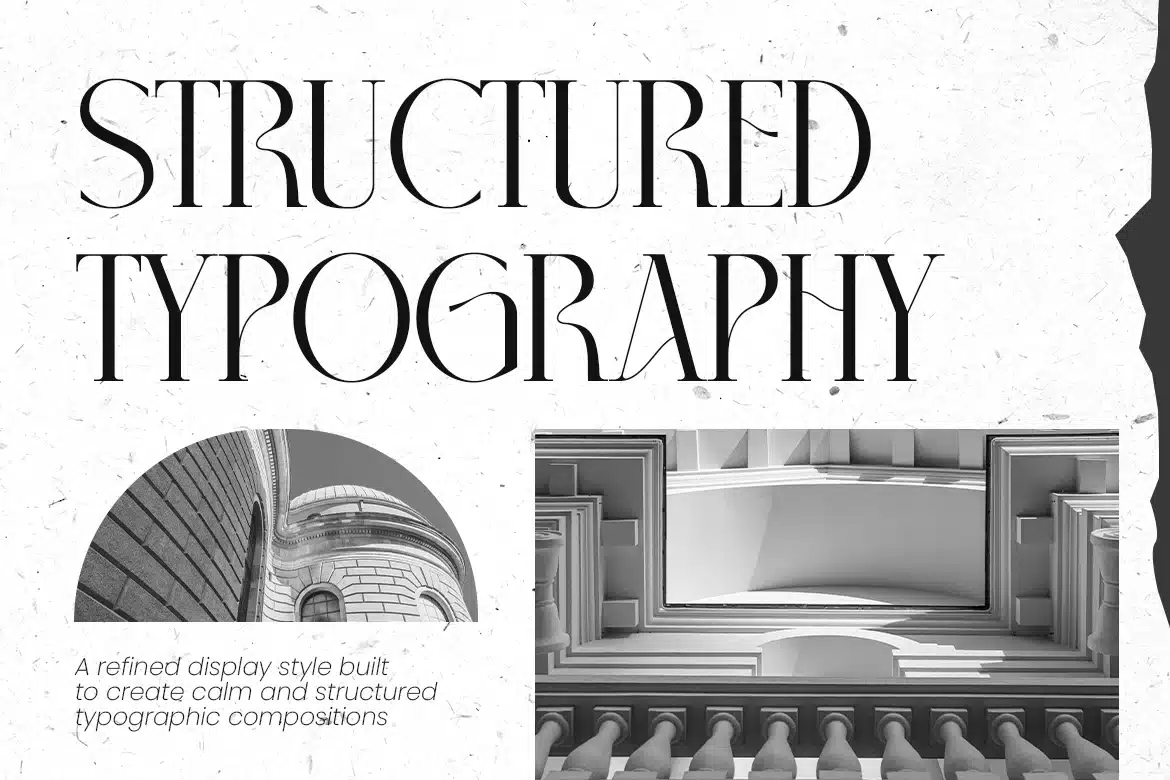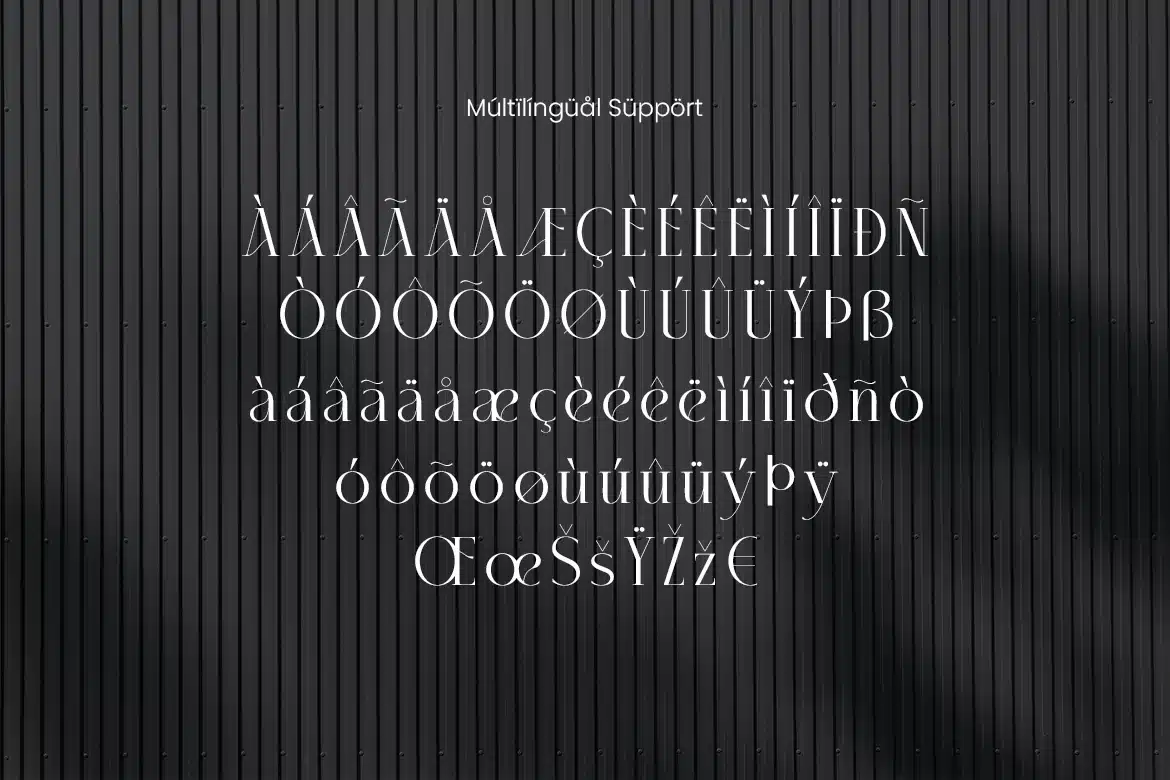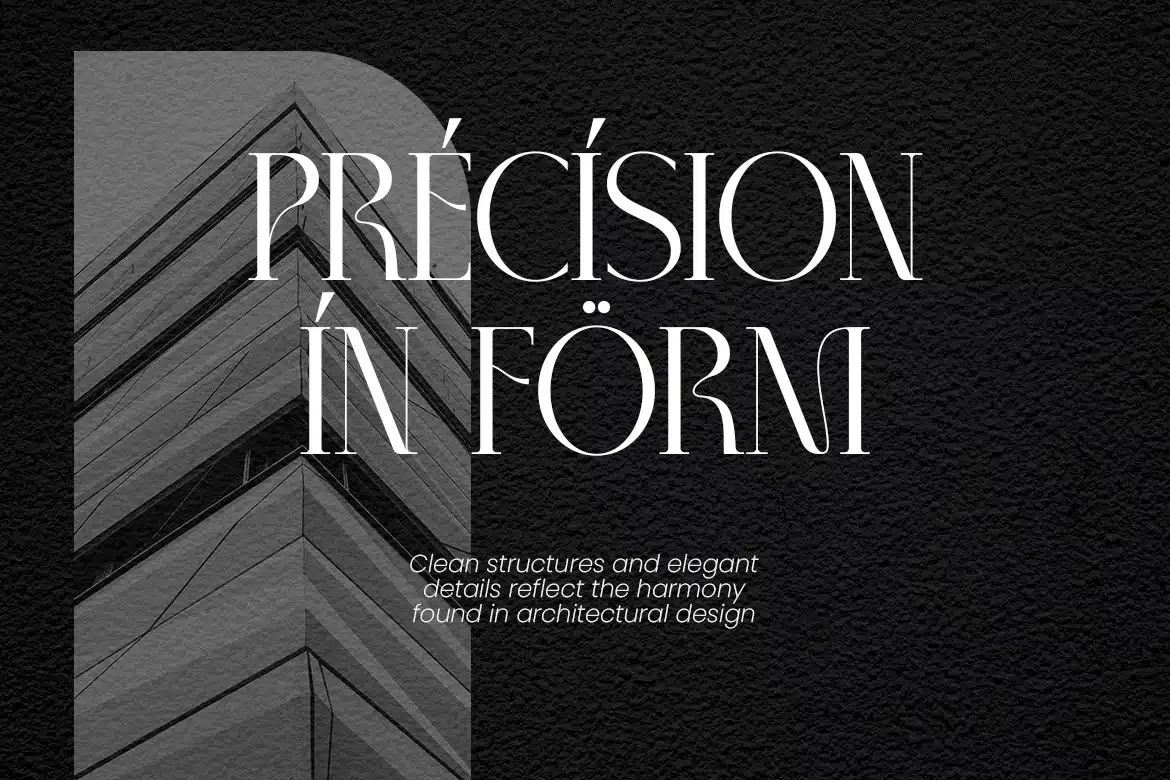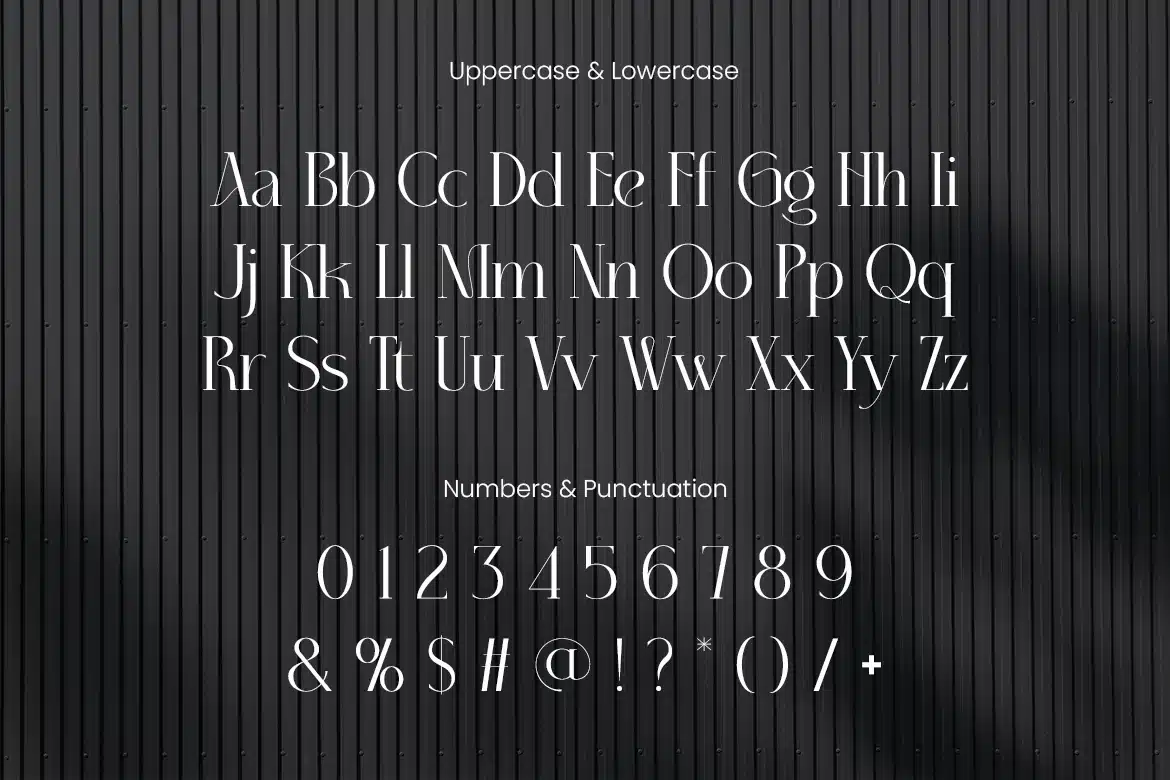
Milara – Elegant Branding Display Font
Milara is a refined high-contrast editorial serif typeface designed for sophisticated branding and structured editorial layouts, featuring delicate curves, sharp terminals, and balanced proportions that create a graceful and timeless visual rhythm.
Milara’s letterforms feel carefully structured and expressive, making it a strong choice for branding projects, editorial headlines, lookbooks, social media visuals, packaging titles, and creative studio identities. The typography naturally conveys clarity, structure, and aesthetic refinement without overwhelming the layout. With multilingual support for 67 languages, Milara allows designers to maintain a consistent visual identity across international branding and publishing projects.
Milara is crafted for designers who want typography that communicates clarity, refinement, and editorial sophistication. It works beautifully in branding presentations, magazine covers, architecture portfolios, creative agency websites, and poster layouts. The balanced contrast and elegant proportions give every headline a sense of intention and structure. Whether used for editorial storytelling, brand identity systems, social media campaigns, or modern packaging, Milara helps transform text into a visual element that feels thoughtful and carefully composed.
Key Features :
Elegant High-Contrast Letterforms
- Fine hairlines and defined vertical strokes create a graceful and expressive typographic style.
Editorial-Focused Design
- Perfect for magazine titles, design portfolios, architecture publications, and editorial spreads.
Balanced Proportions
- Carefully structured letterforms create a calm and harmonious visual flow.
Refined Headline Presence
- Ideal for branding headlines, posters, packaging titles, and visual identity systems.
- Supports 67 languages, making it suitable for international publishing and branding.
Timeless Typography Style
- A classic yet modern aesthetic that works across contemporary creative projects.